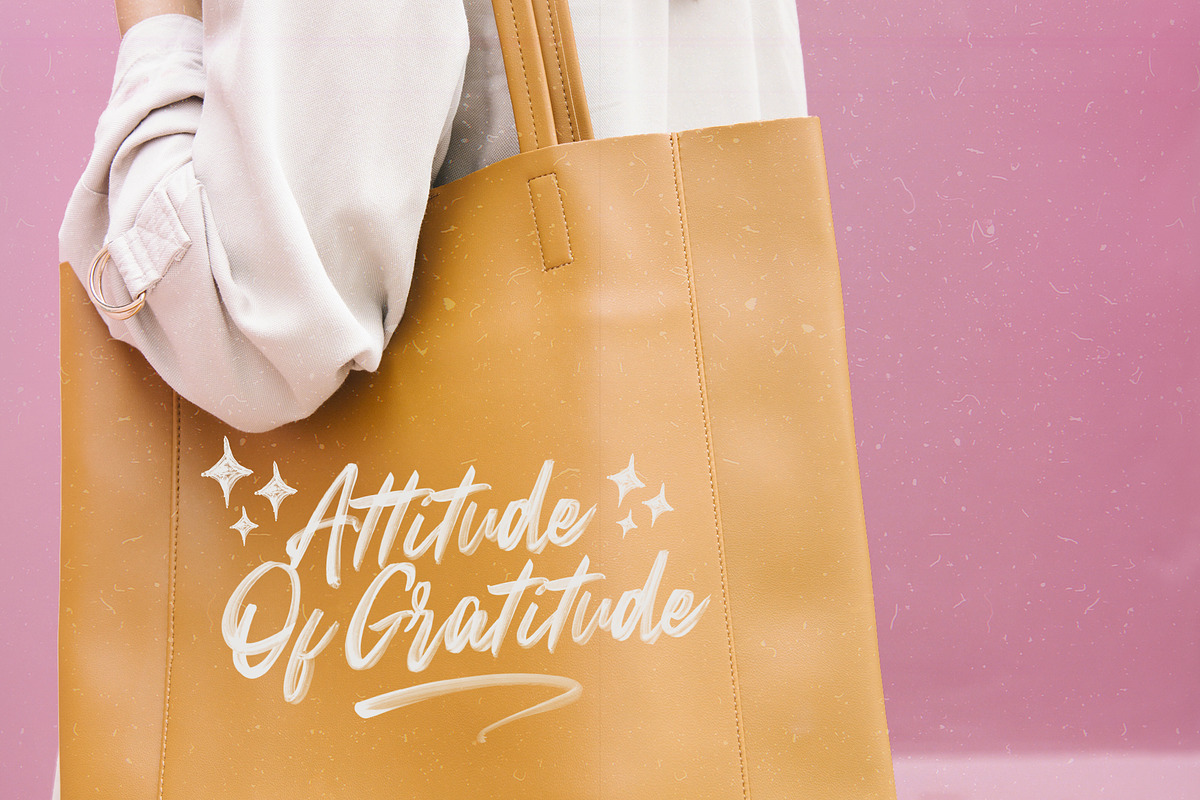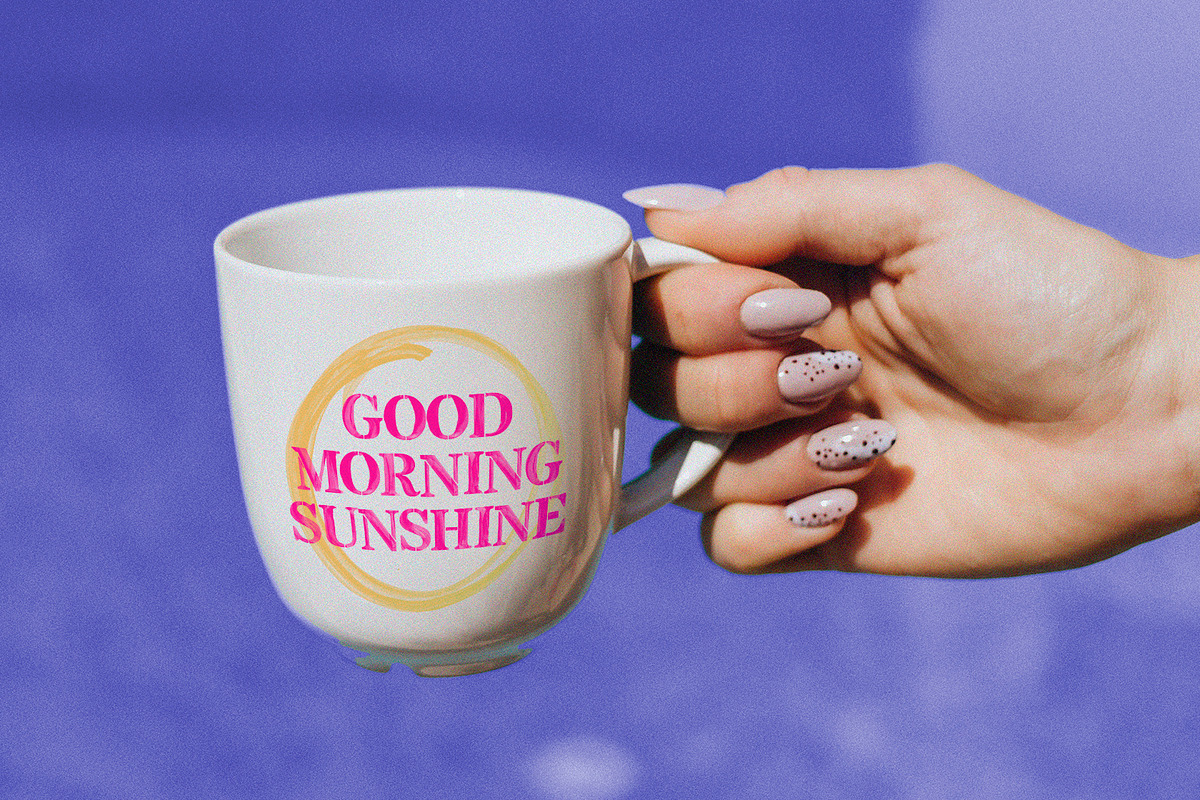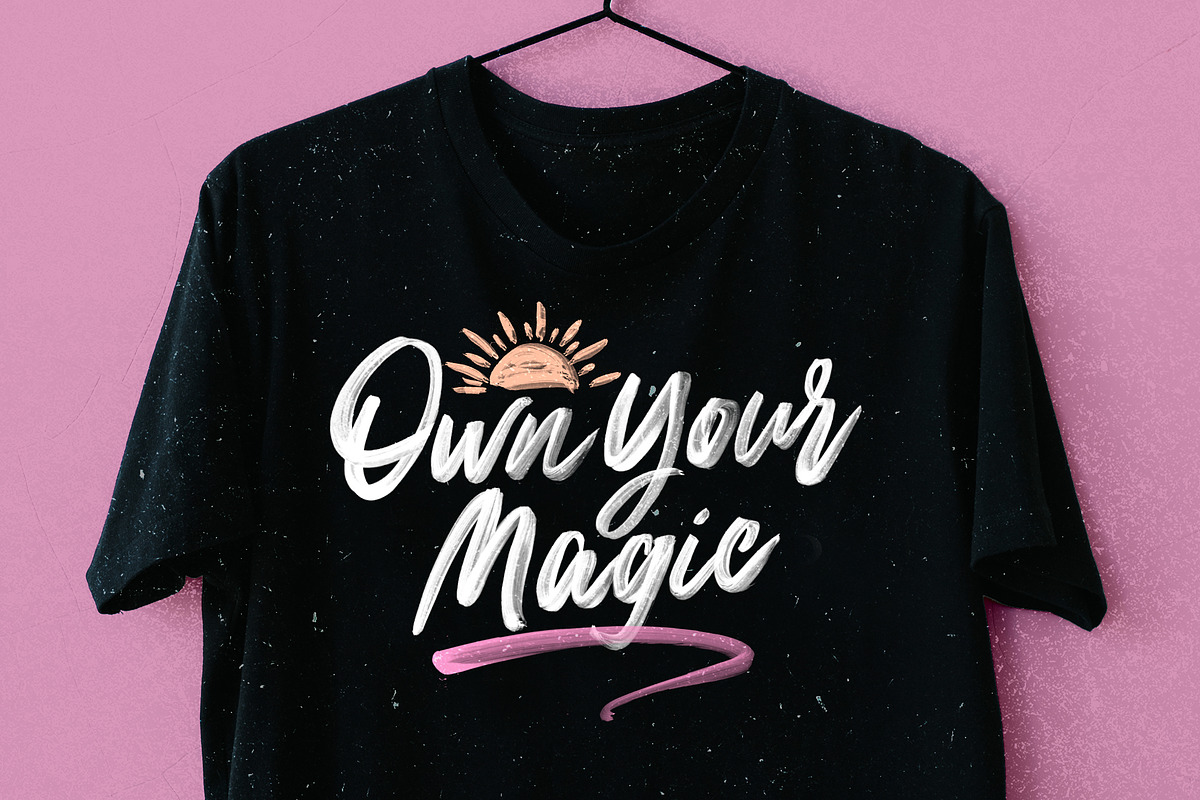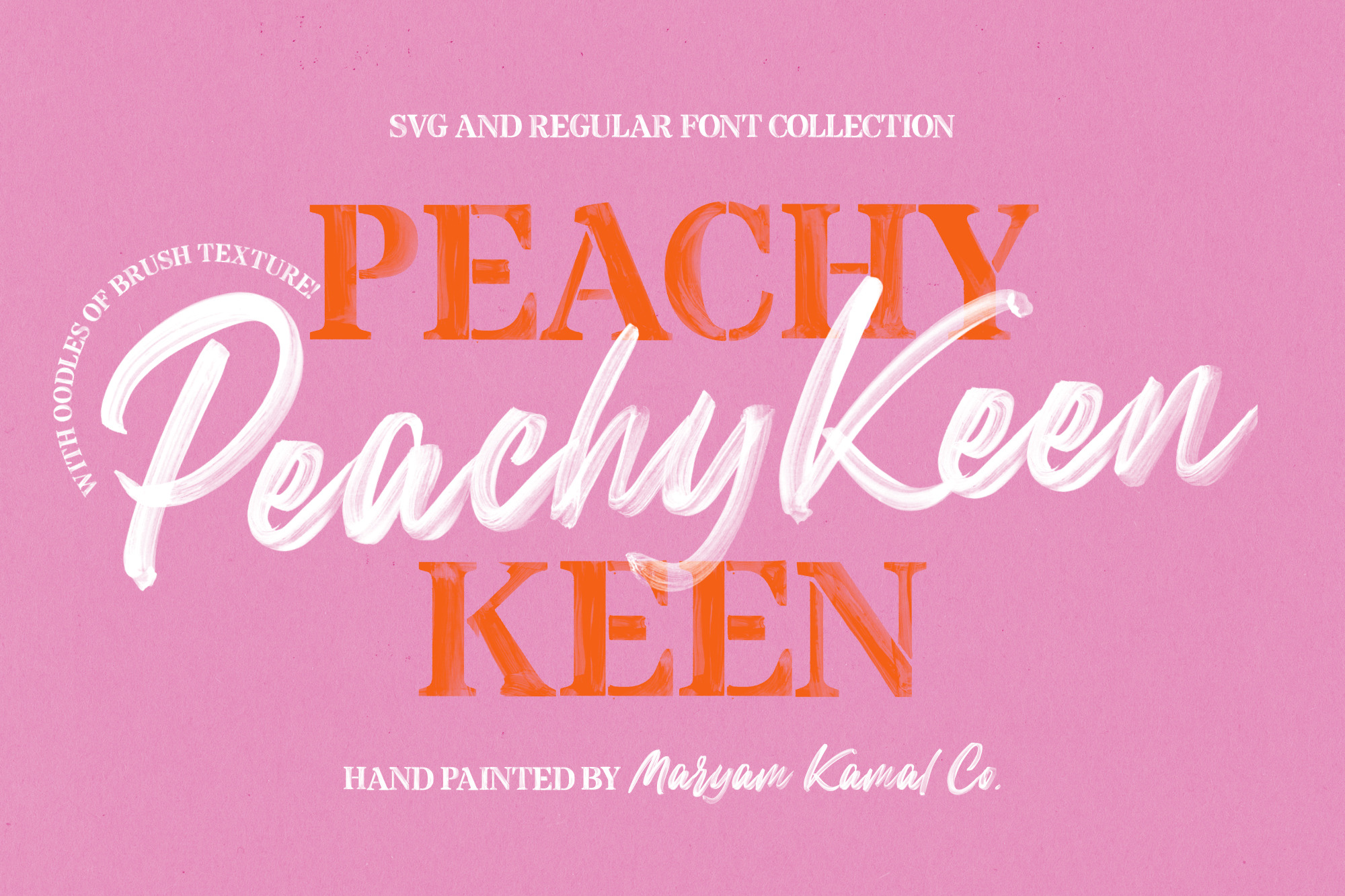
Peachy Keen Font Collection
Introducing the all-new Peachy Keen Font Collection! A hand-painted font collection with oodles of texture and sass! The Peachy Keen Collection includes a stylish hand-painted script and a complimentary stencil serif, both provided in SVG and regular font types. The Collection was designed to be rich in texture and character. With built-in Opentype features, this font comes to life as if you've painted it yourself!!
The collection includes complementary hand-painted illustrations for you to use them however you like in your designs! Create Logos, posters, invitation cards, thank you cards, birthday wishes, t-shirts, merchandise, the options are truly limitless! The font also includes 11 built-in stylish swashes to vamp up your quotes and designs :)